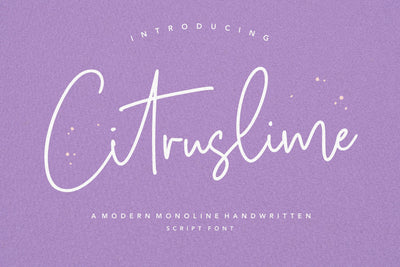
Citruslime Modern Monoline Handwritten Script Font
Introducing by Letterative Studio : Citruslime Font
Citruslime is a Modern Monoline Handwritten Script Font
Citruslime is a magical handwritten font, carefully created with a touch of elegance. Whether you’re looking for fonts for Instagram or calligraphy scripts for DIY projects, this font will turn any creative idea into a true piece of art!
Citruslime also multilingual support